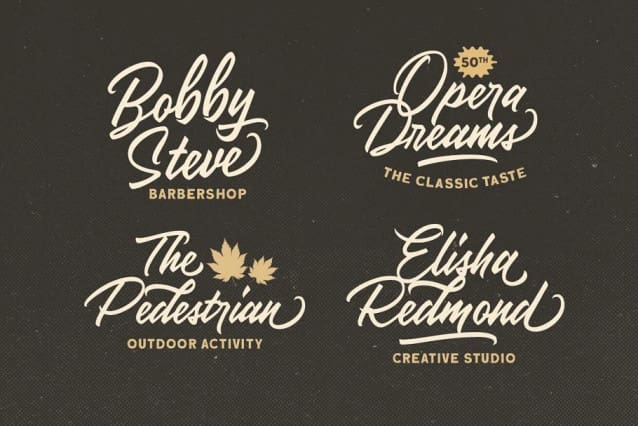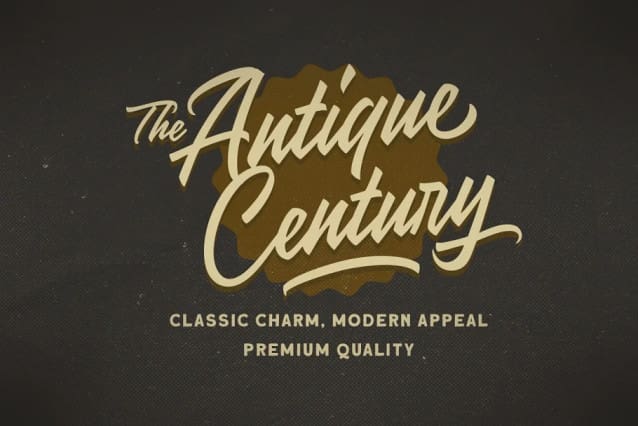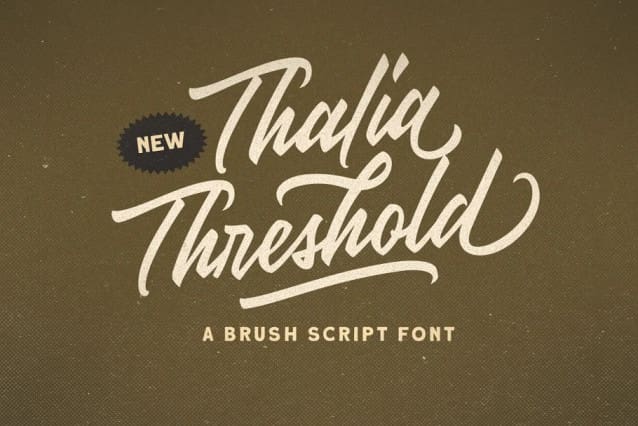
Thalia Threshold Font
Thalia Threshold Font is a brush script with charm classic. You can playaround with alternate characters. This font perfectly made to be applied especially in logo, and the other various formal forms such as invitations, labels, logos, magazines, books, greeting / wedding cards, packaging, fashion, make up, stationery, novels, labels or any type of advertising purpose.